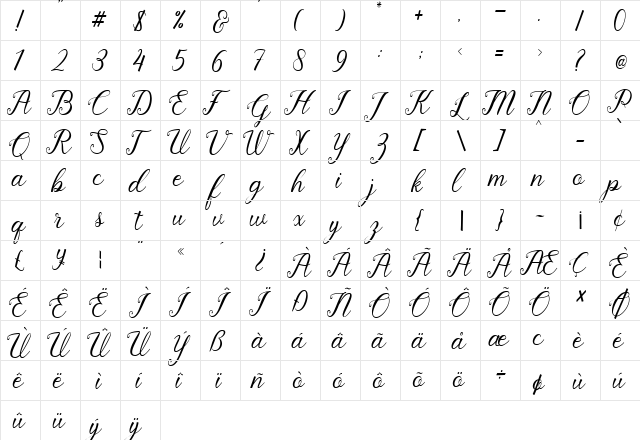
Pruistine Script Regular
Design Context for Pruistine Script Typeface
Pruistine Script flows with the natural rhythm of handwritten lettering, making it ideal for designs that call for warmth and personal expression.
Font Pairing: Combine Pruistine Script with a simple geometric sans for maximum contrast — the tension between flowing curves and clean structure is a classic typographic pairing.
Pro Tip: Use Pruistine Script for short runs of text — names, titles, or taglines. Extended body copy in script faces tires the eye quickly.